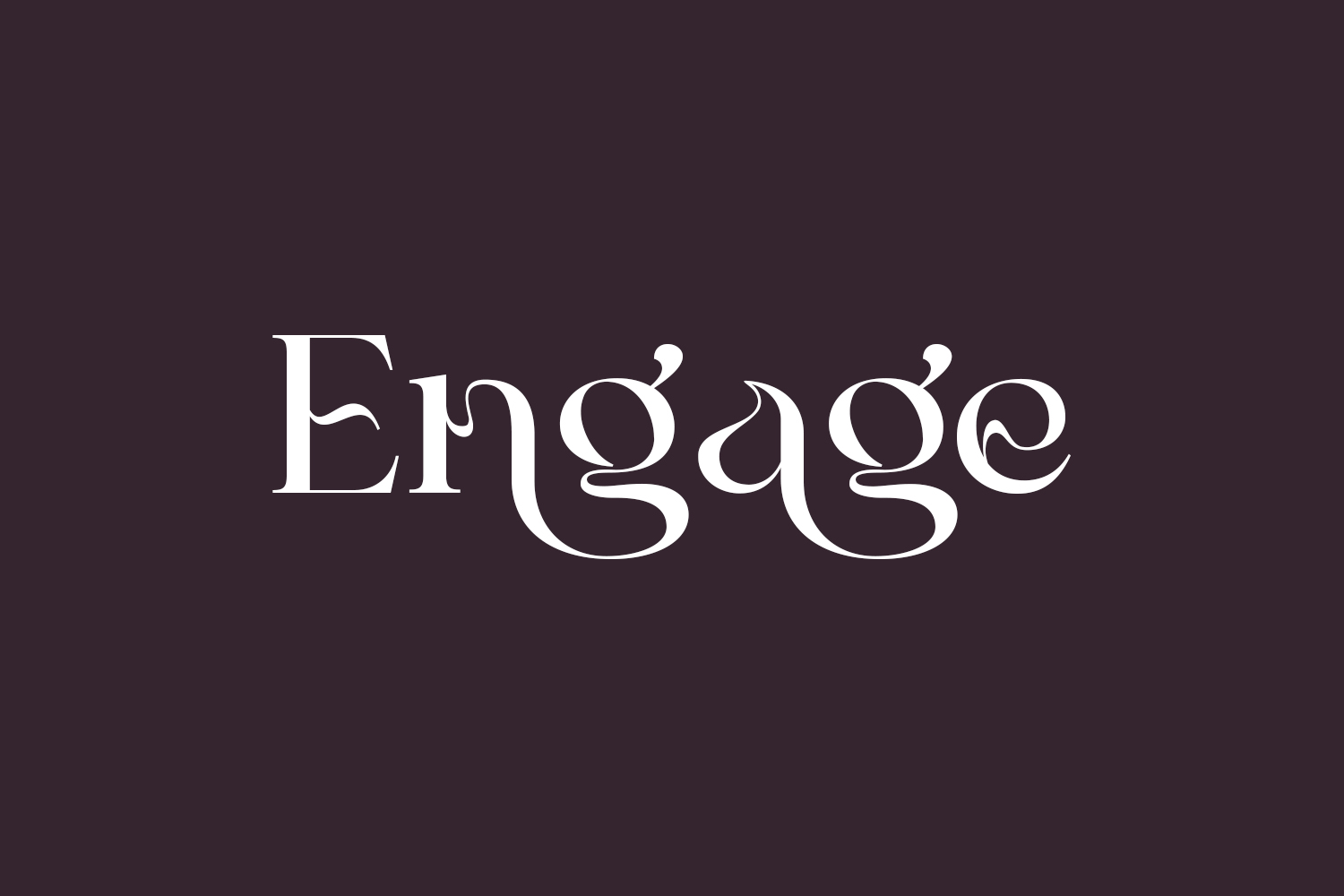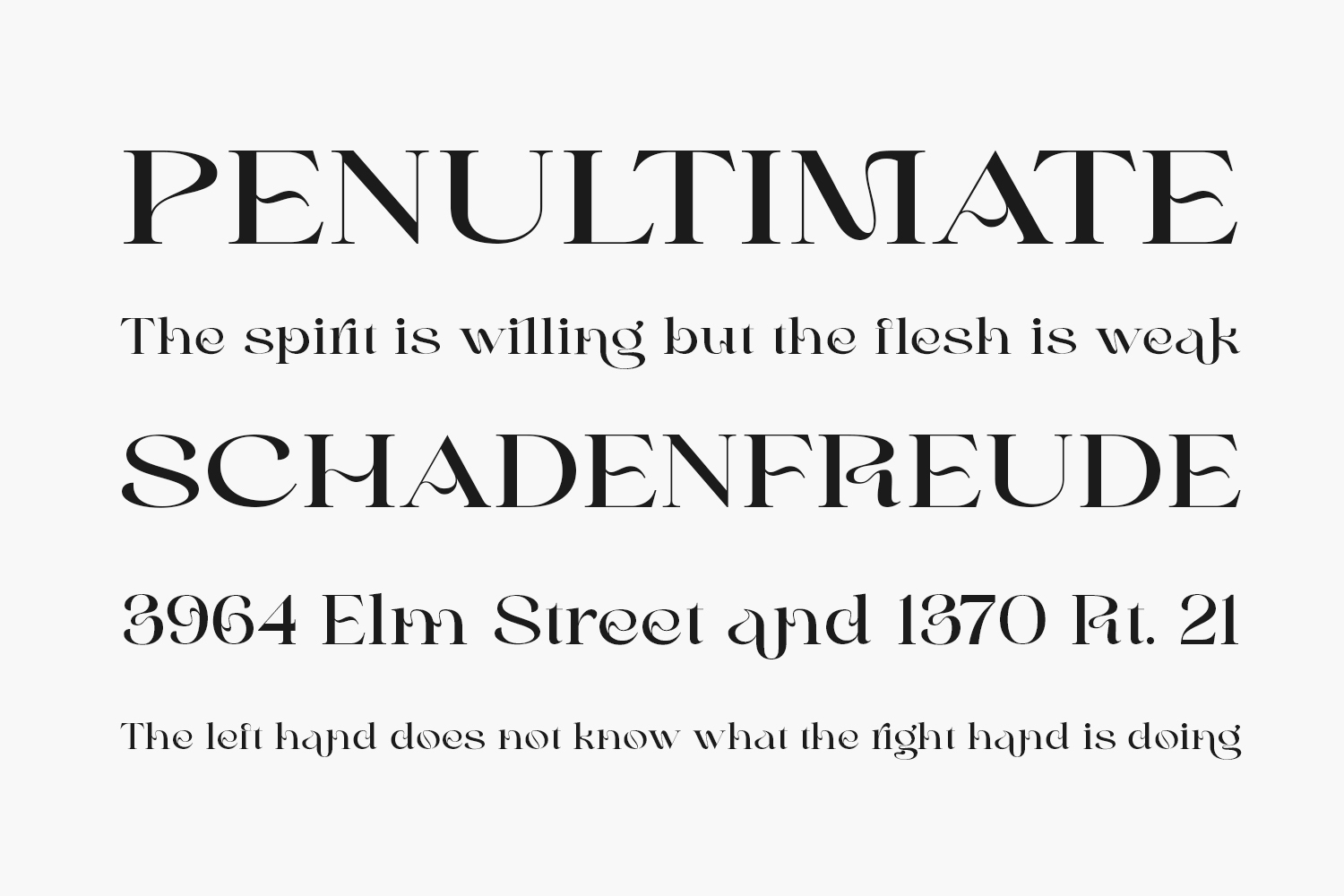
Engage Free Font is an elegant and stylish serif font. Trendy and unique, this font will elevate each of your creations. Engage Free Font is free for personal use only. Please purchase the full version for commercial use.
Designed by 177Studio